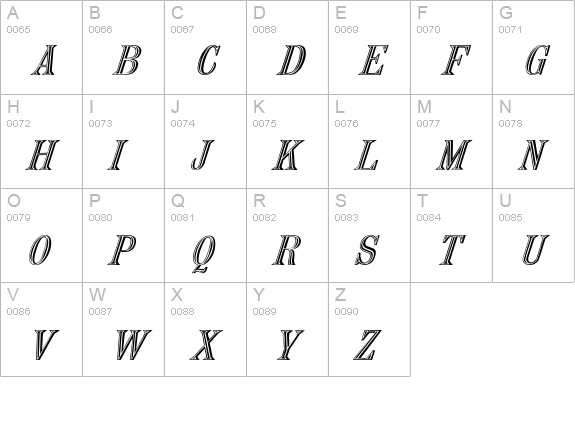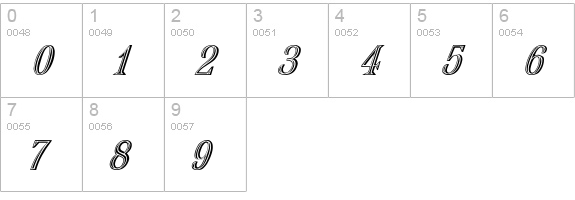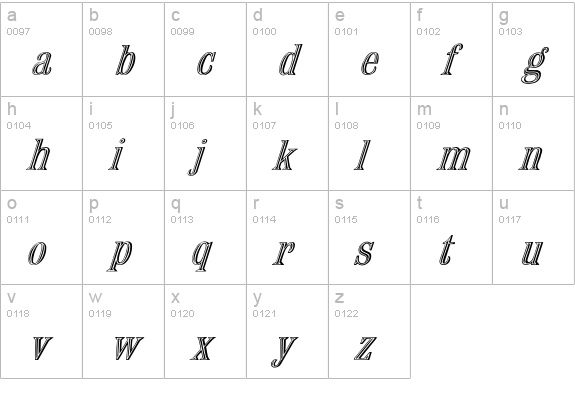
Nauert-Italic is a distinctive, italic variant in the Nauert typeface family \xE2\x80\x94 well suited to design and typography projects.
Nauert-Italic font is a stunning and elegant typeface that exudes a sense of sophistication and grace. Its beautifully crafted letterforms have a unique italic style that lends a touch of fluidity and movement to any design project. With its delicate curves and subtle slant, Nauert-Italic font effortlessly captures attention and adds a touch of elegance to any typographic composition. Whether used for headings, logos, or body text, this font is sure to make a lasting impression. One of the most remarkable aspects of Nauert-Italic font is that it is free. Yes, you read that right! This exquisite typeface is freely available to download at FontsMarket.com, making it accessible to designers and creatives worldwide. The versatility of Nauert-Italic font is truly remarkable. It effortlessly adapts to various design styles and themes, from classic and timeless to modern and contemporary. Its subtle italic slant adds a hint of dynamism, making it perfect for conveying a sense of movement and energy. Nauert-Italic font's carefully crafted details, like its graceful letterforms and precise spacing, make it a truly exceptional choice for any design project. Its legibility and readability ensure that your message is conveyed with clarity and style. Whether you're designing a branding project, a website, or a print publication, Nauert-Italic font is a fantastic choice that will elevate your design to new heights. Its timeless elegance and free availability make it a must-have for any designer's toolkit. So don't miss out on the opportunity to enhance your designs with the beauty of Nauert-Italic font. Download it for free today at FontsMarket.com and let your creativity soar.